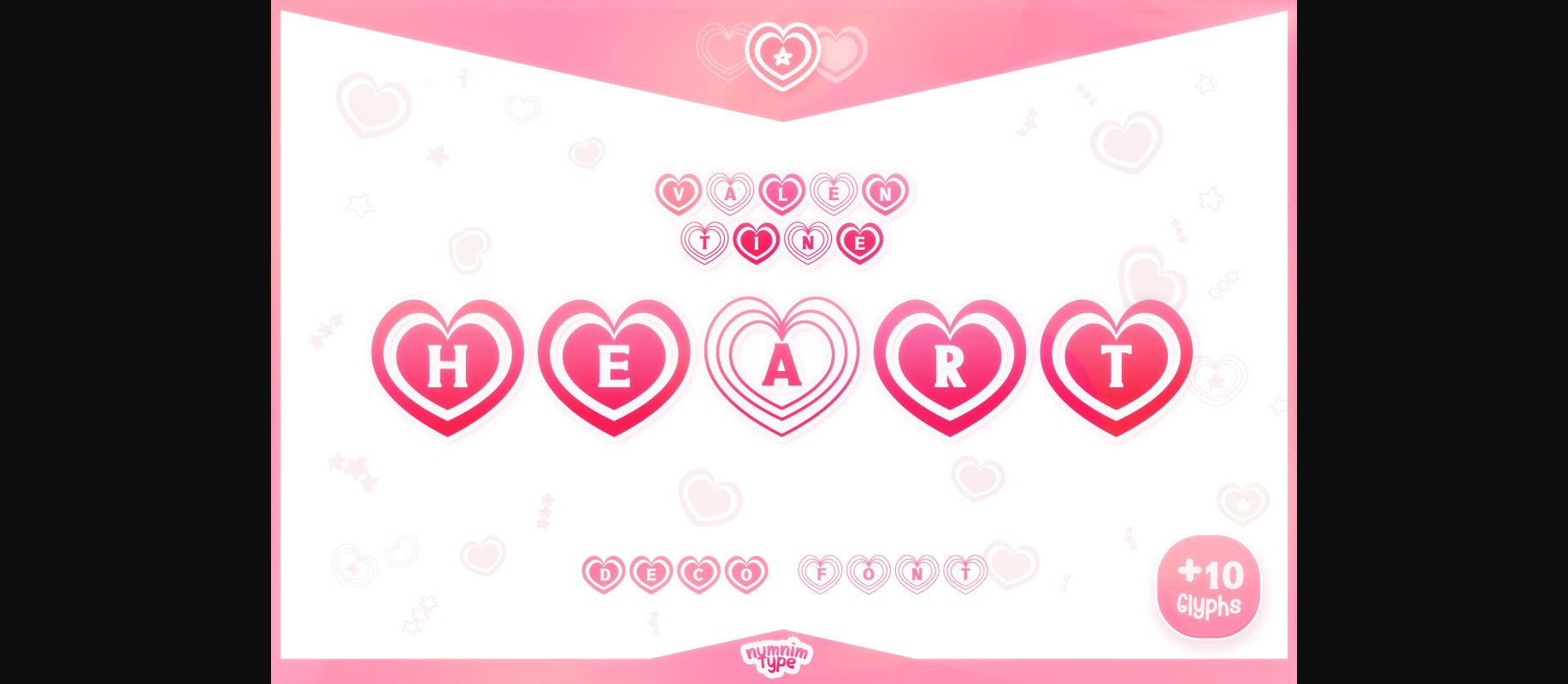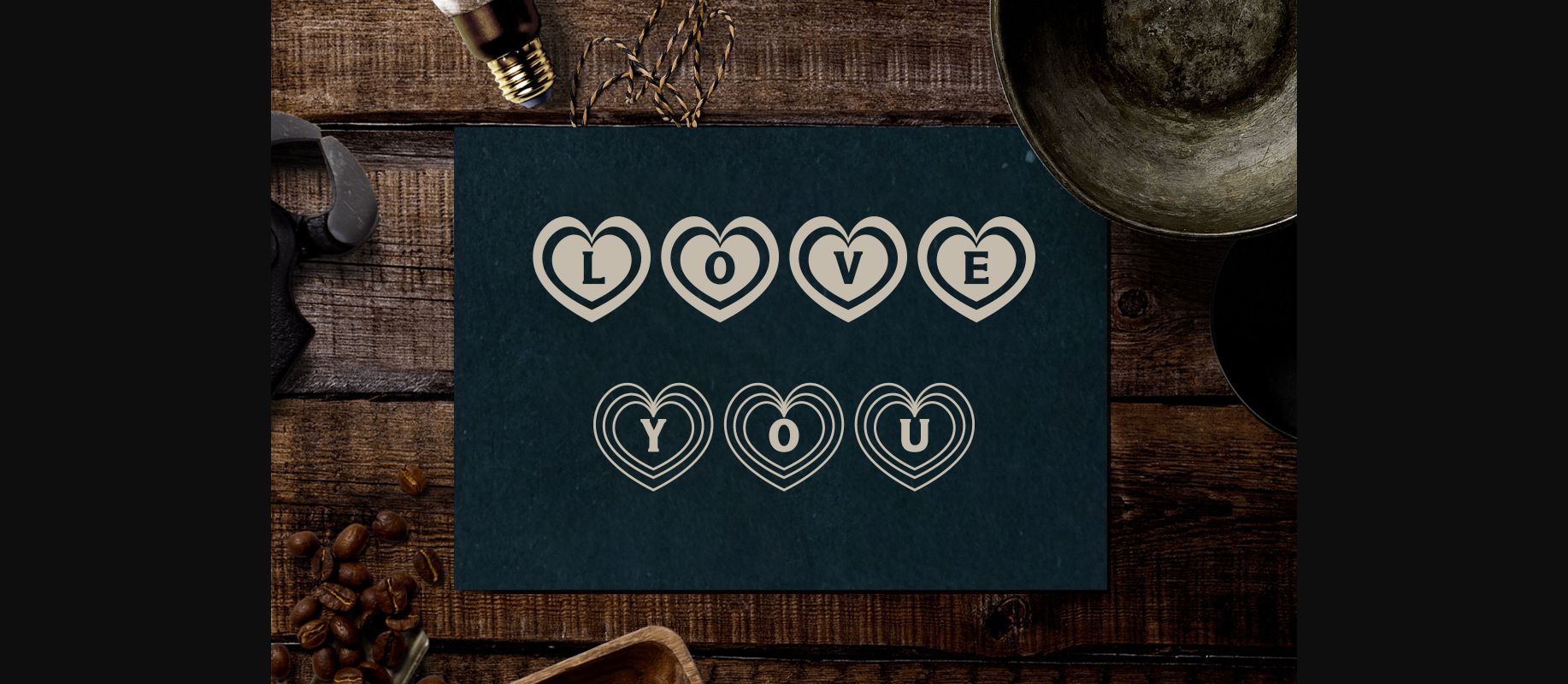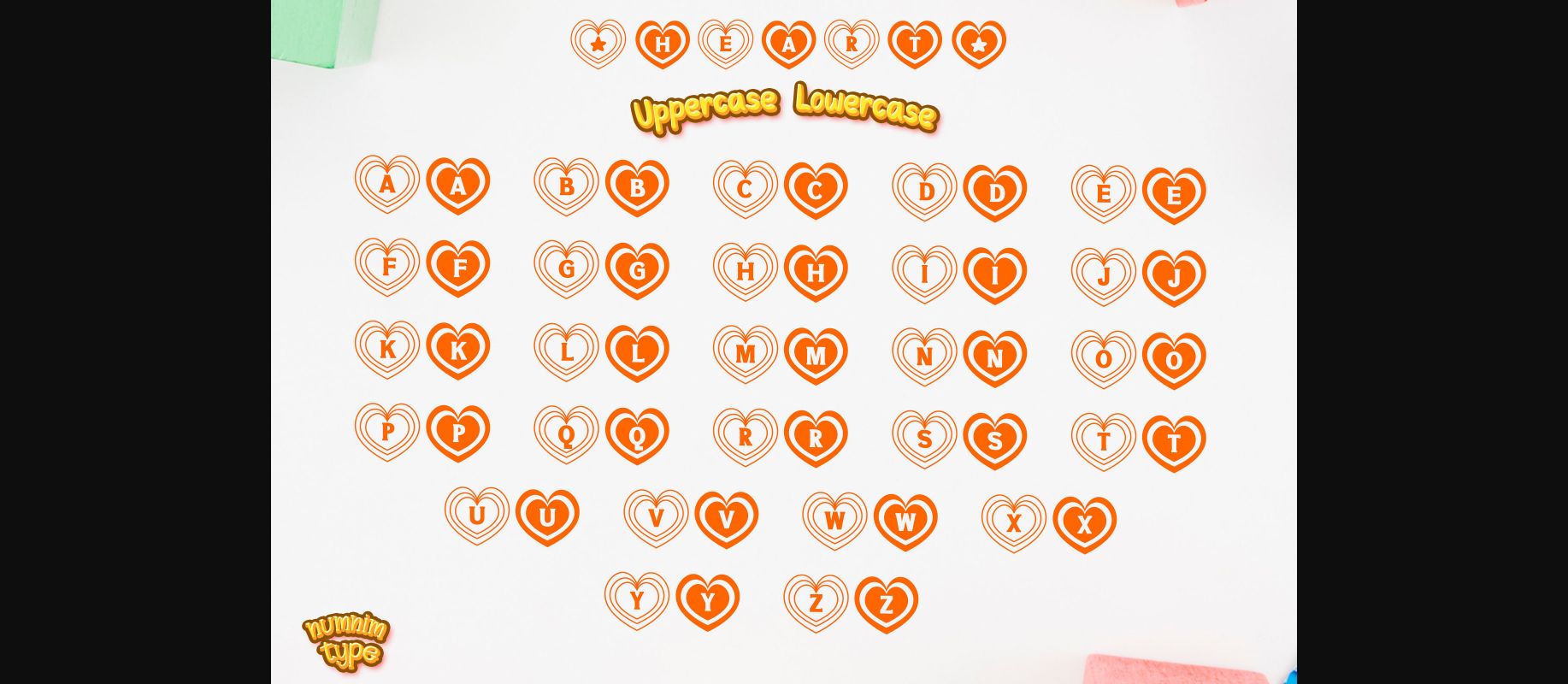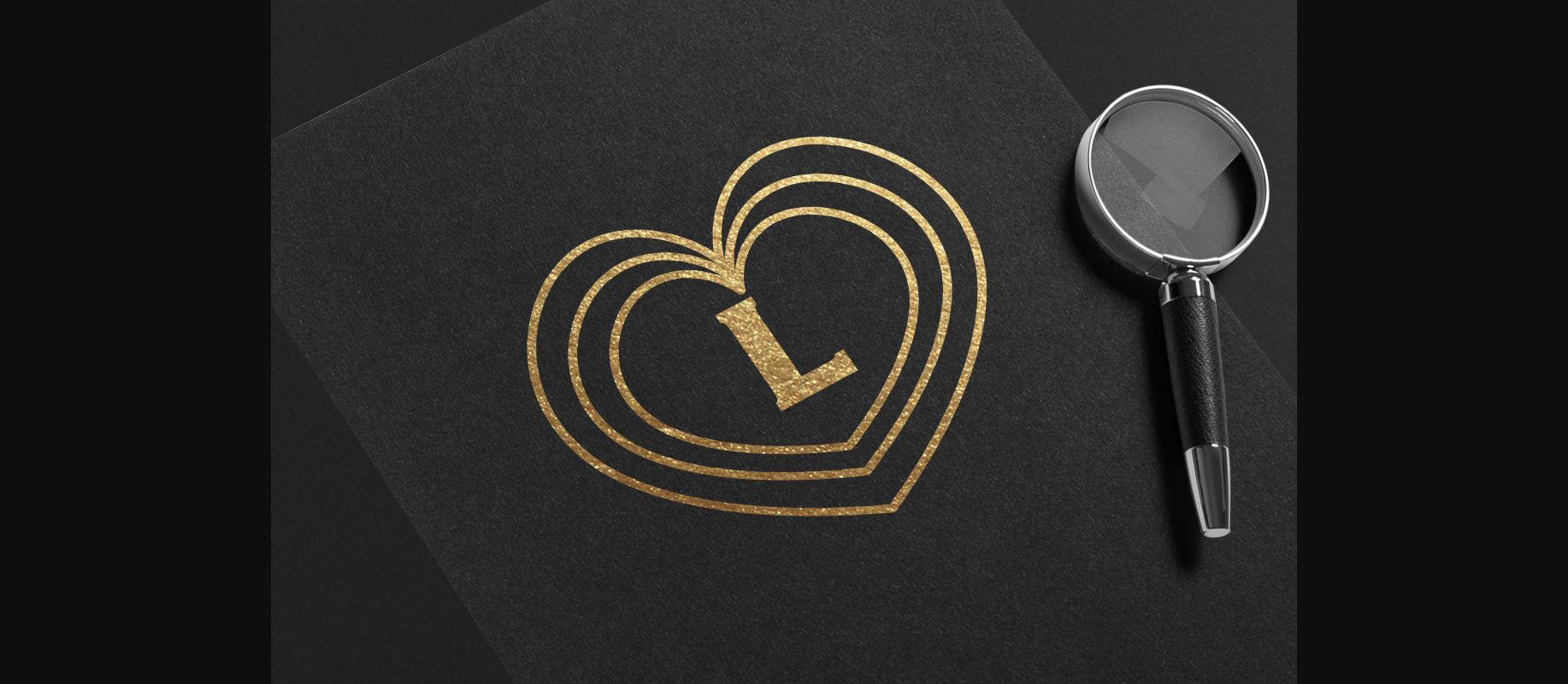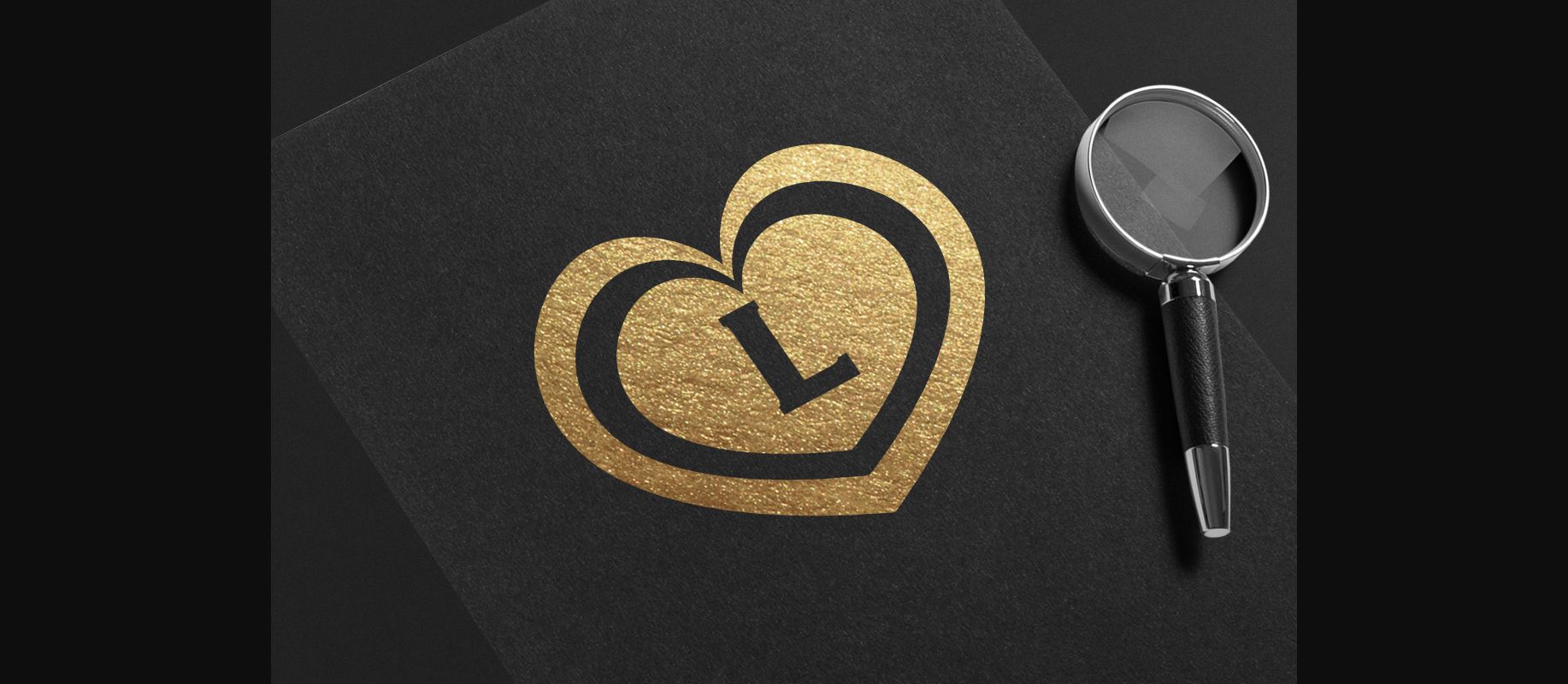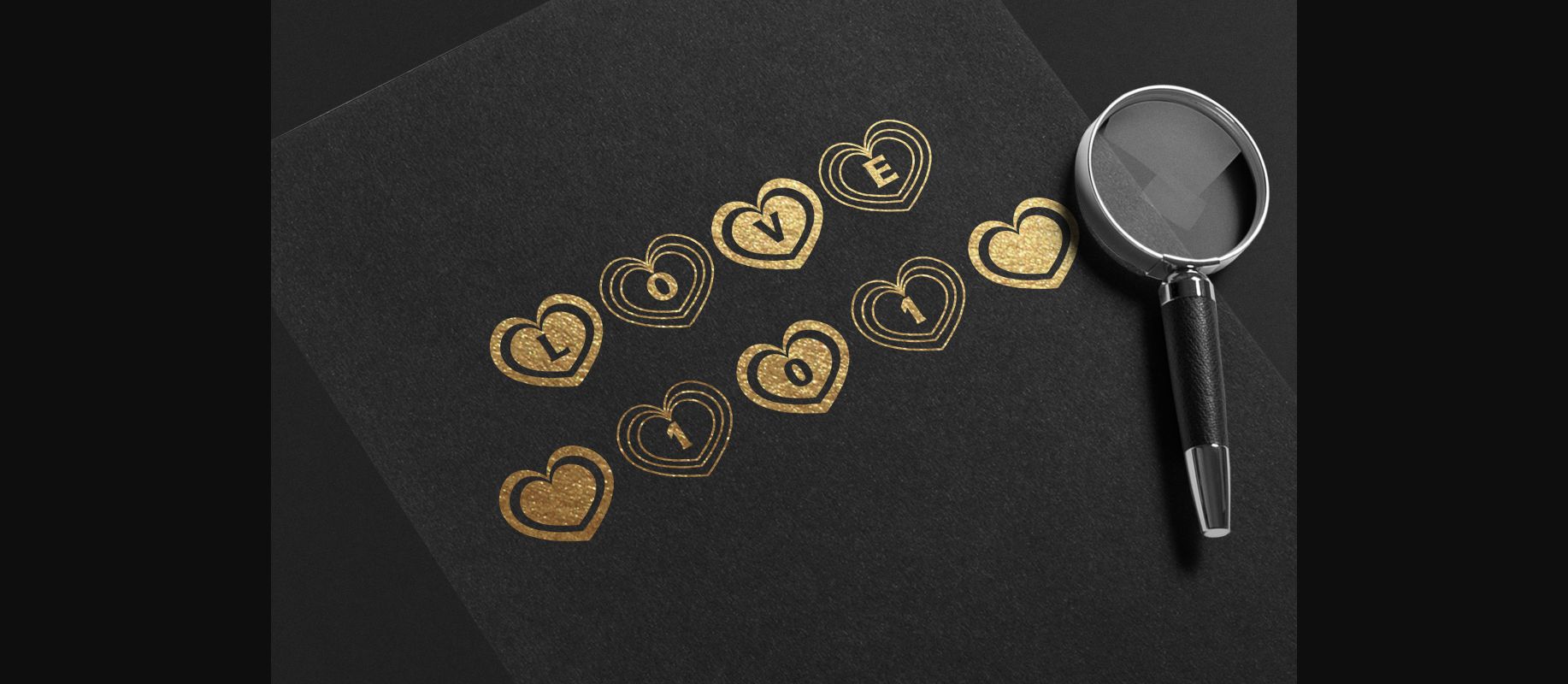
About Valentine Heart Font
Valentine Heart is a cool and uniquely designed decorative font, created particularly for Valentine’s Day. The characters are fun and playful, perfect for adding a bold accent to your designs!